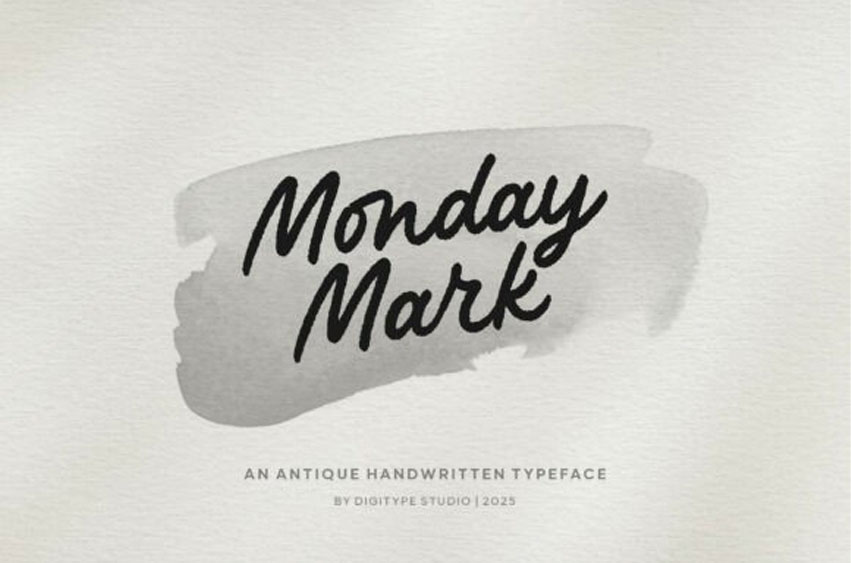
Monday Mark Font
Monday Mark Font is an antique-style handwritten font with warm, natural, and expressive letterforms. Each stroke feels organic, like a brush of ink on paper, creating an authentic, personal, and slightly vintage impression.
This font is designed to bring a relaxed yet elegant atmosphere, making it perfect for designs that aim to feel honest and artistic.